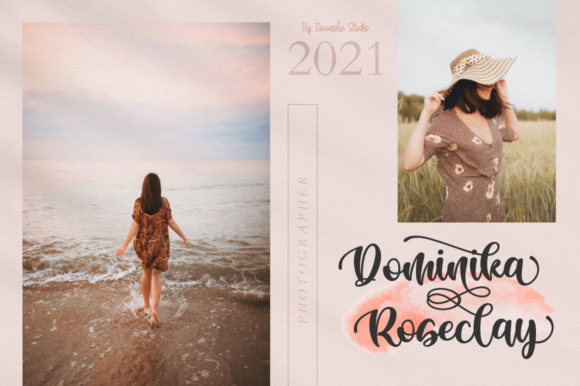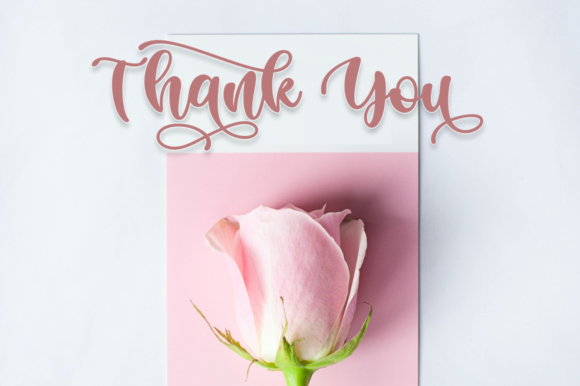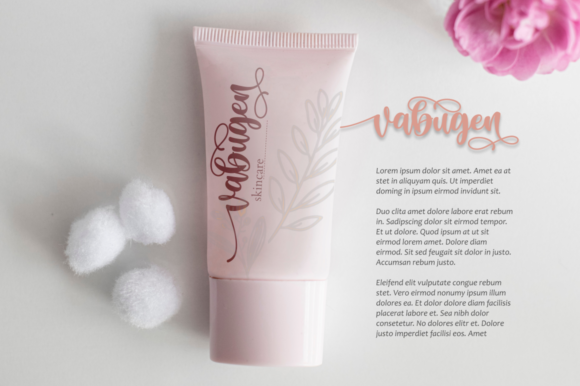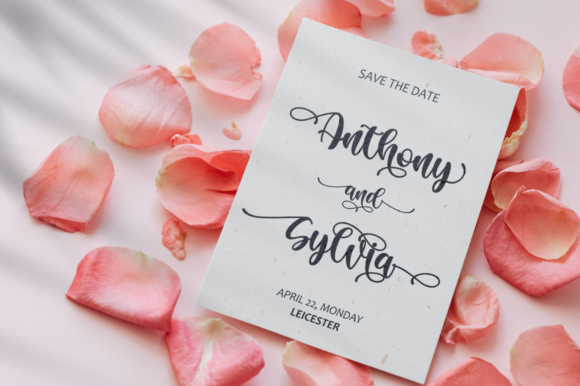
About Ayalisse Font
Ayalisse is a beautiful script written in a modern caligraphy style. It would be perfect for branding, wedding invitations, logos, crafts, handmade, packaging, fashion and any other romantic project. There are many alternative choices for each letter that you can combine according to the needs of your project.